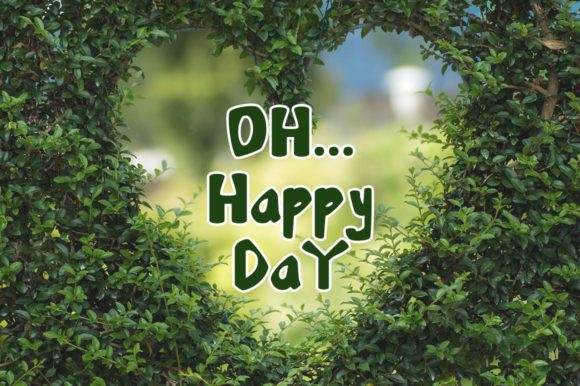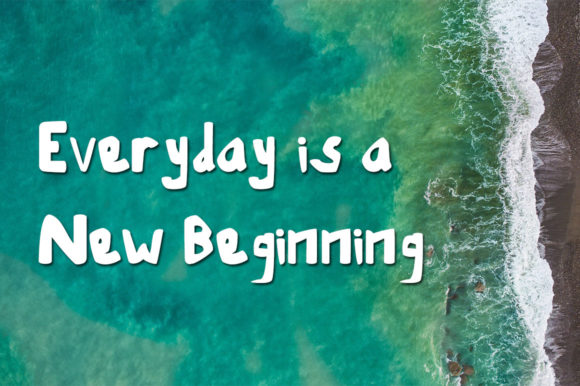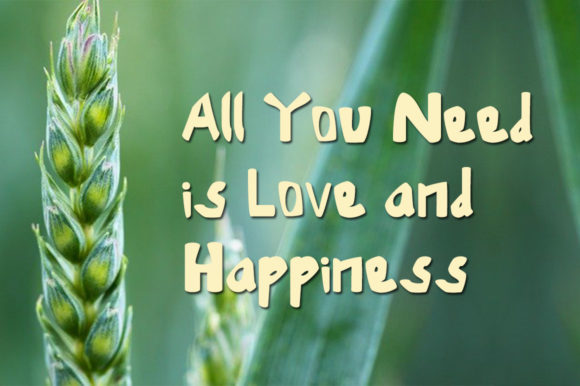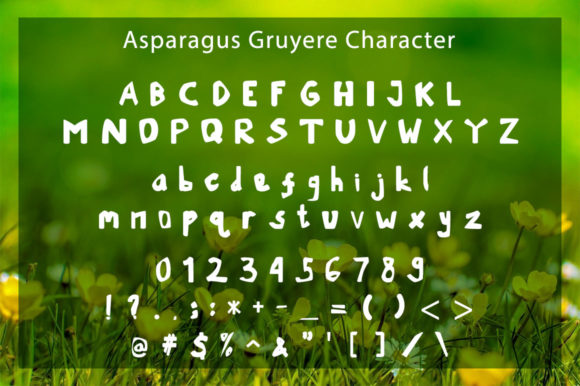
Introduction to Asparagus Gruyere Font
Asparagus Gruyere is a cute and casual display font.
Add this unique font to your designs and notice how it makes them come alive .
Key Features of Asparagus Gruyere Font
Why Choose Asparagus Gruyere Font?